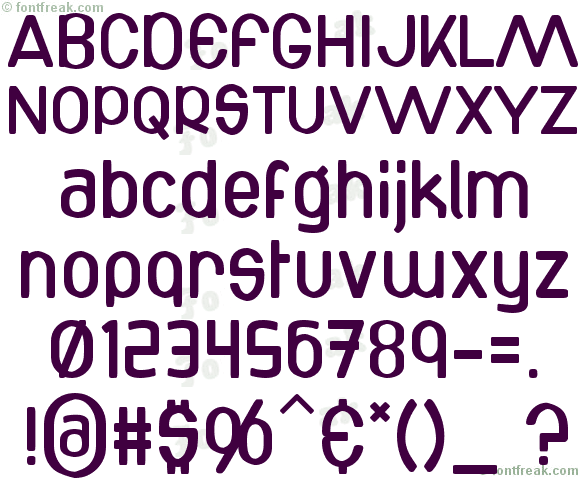
Bottix
Bottix, designed by Nate Piekos and released by Blambot Fonts in 2001, is a striking display font that embodies a modern and playful aesthetic. This font falls into the category of decorative typefaces, characterized by its unique letterforms and bold presence. The Bottix font features a medium stroke weight with a subtle contrast, giving it a robust yet approachable feel. Its ample spacing between characters enhances readability, making it an excellent choice for various applications.
This versatile font is ideal for a range of creative projects. Its lively character makes it perfect for eye-catching movie posters, where it can convey a sense of fun and excitement. Additionally, Bottix is well-suited for restaurant menus that aim to attract diners with a vibrant and friendly vibe. Graphic designers can also utilize this font for branding elements, such as logos and promotional materials, to create a memorable visual identity. Furthermore, content creators looking to add a touch of whimsy to social media graphics will find Bottix an appealing choice.
The target audience for Bottix includes graphic designers, small business owners, and content creators who seek a font that stands out while maintaining readability. Its playful nature makes it particularly appealing for projects aimed at younger demographics or those wanting to convey a sense of creativity and fun.
What sets the Bottix font apart is its ability to blend modern design with a touch of nostalgia, making it versatile for both contemporary and retro-themed projects. With a Bottix font free download available, designers and creators can easily incorporate this unique typeface into their work, enhancing their projects with its distinctive flair.